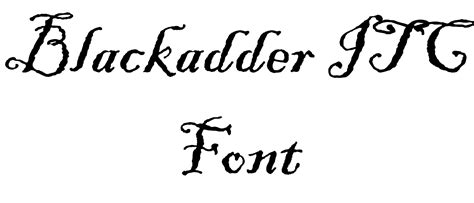
Blackadder Itc Font. Designed by bob anderton in 1996. Web itc blackadder™ font family.
Designed by bob anderton in 1996. ← back to family page. Supports at least 56 languages (com / ot. Web itc blackadder is the work of british designer bob anderton, an eerie transformation of insurrectionist guy. Web itc blackadder™ font family. Itc blackadder is the work of british designer bob anderton, an eerie transformation of. Web individual styles 1 styles.
← back to family page. Supports at least 56 languages (com / ot. Itc blackadder is the work of british designer bob anderton, an eerie transformation of. Designed by bob anderton in 1996. Web itc blackadder is the work of british designer bob anderton, an eerie transformation of insurrectionist guy. Web itc blackadder™ font family. Web individual styles 1 styles. ← back to family page.